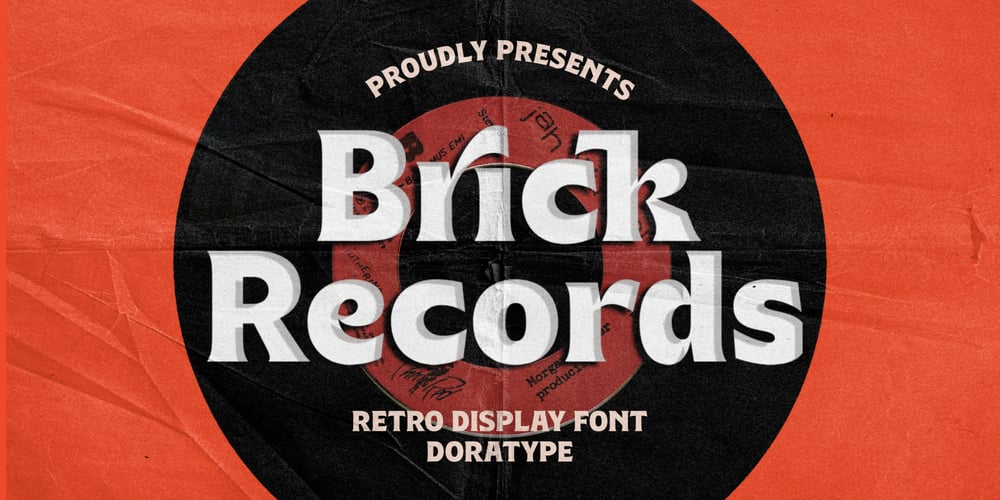
Brick Records Font Family was designed by Zahratul Laila and published by Dora Typefoundry. Brick Records contains 1 styles and family package options. Brick Records is a bold serif typeface with a vintage and retro look! You’ll definitely love this font that gives off a sophisticated feel even with all its playfulness. equipped with ligatures, the alternative becomes an attractive option. Brick Records is perfect for branding, magazines, web, broadcast, packaging, apparel print, branding, titling, headlines and more.Features All Uppercase and Lowercase Numbers & Symbols Supported Languages 85 Alternates 35 Ligatures PUA Encoded We strongly recommend using programs that support OpenType features and Glyphs panels such as Adobe and Corel Draw applications, so you can view and access all variations of Glyphs.Families like this have become a true labor of love, making it as easy and enjoyable as possible. I really hope you enjoy it!if you have any questions or problems please contact email: doratypefoundry@gmail.comHappy designing!